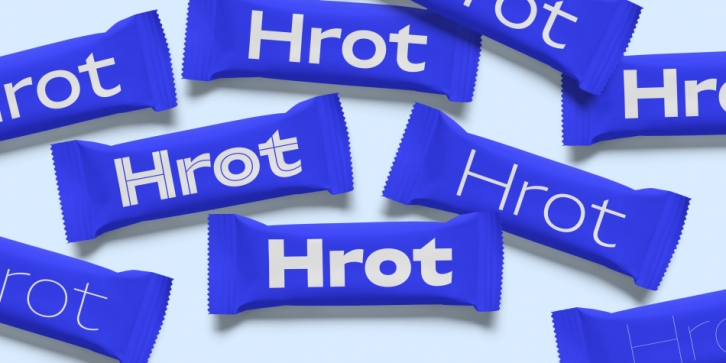
Designed by VojtÄ›ch ŘÃha, Hrot is a sans serif and display sans font family. This typeface has eighteen styles and was published by Superior Type.
Grown organically from the soft aesthetics of Swiss and German airline posters, Hrot is a versatile sans-serif family with eighteen distinctive cuts. Works perfectly in elegant headlines and gives perfect impact to any logotype.
All characters have wider drawing, which makes them pleasant to read in all sizes and works perfectly both in print and digital media. Sharp ended serifs are surprisingly combined with rounded shapes. Select thin or black style, whole structure just breathes air and radiates simplicity.
Conclusion: when humanism meets geometry, the result is a unique personality. Hrot is the final proof.